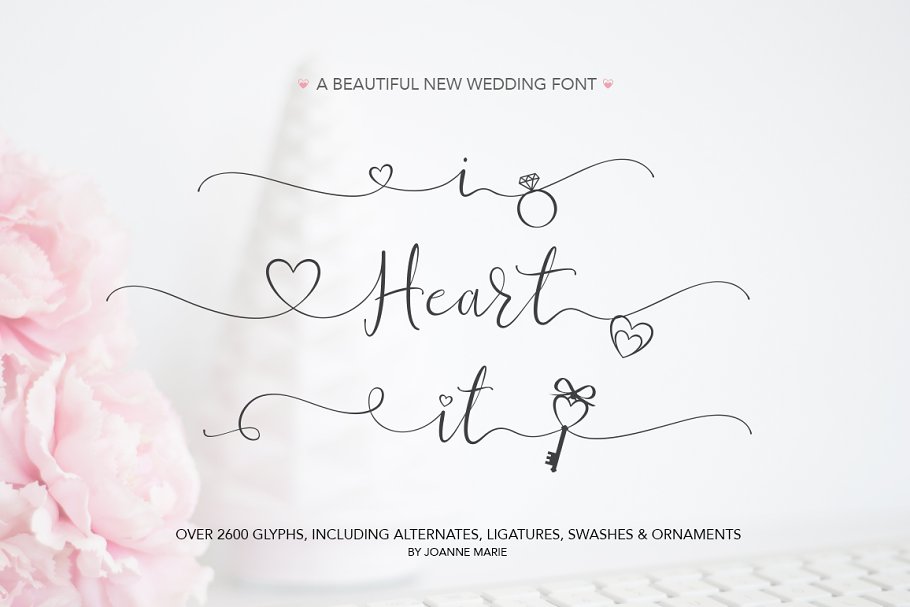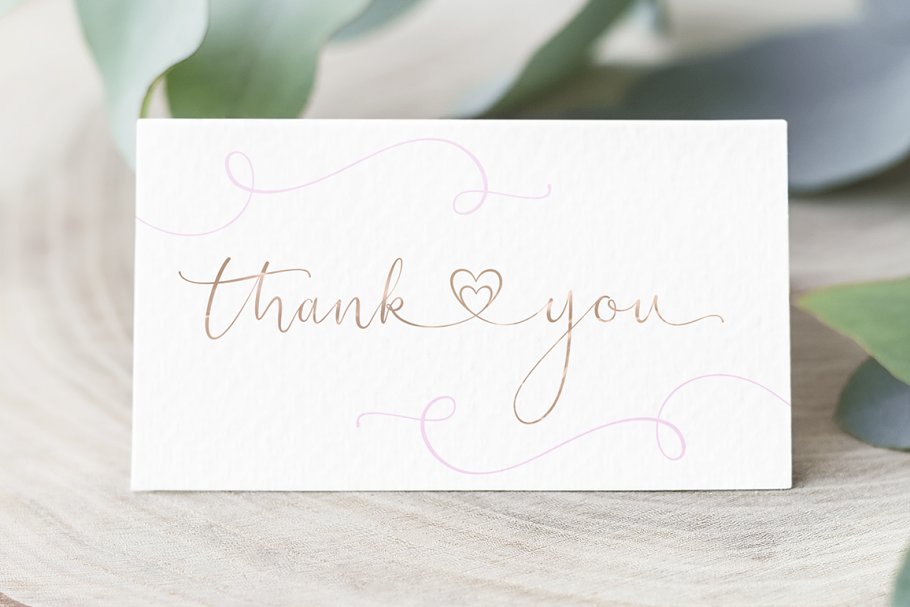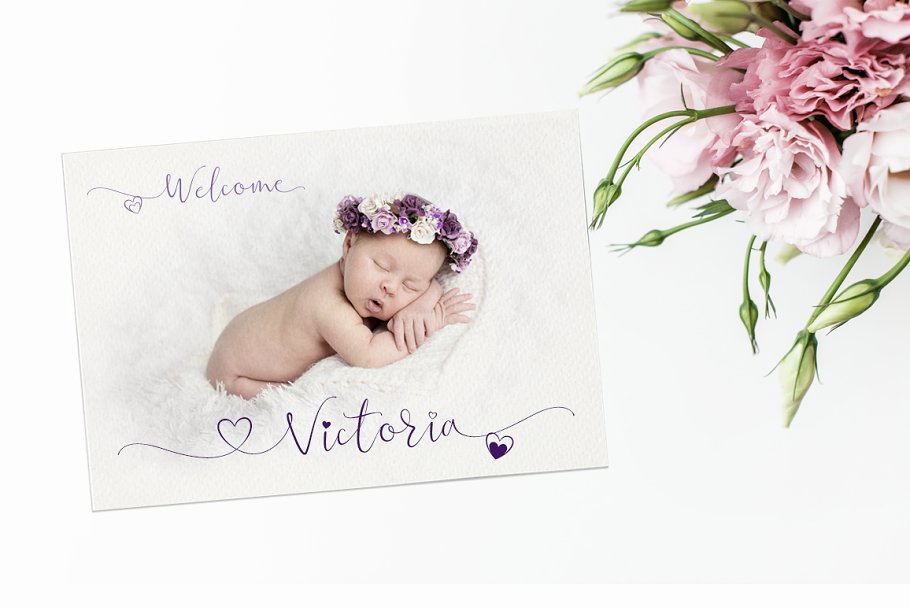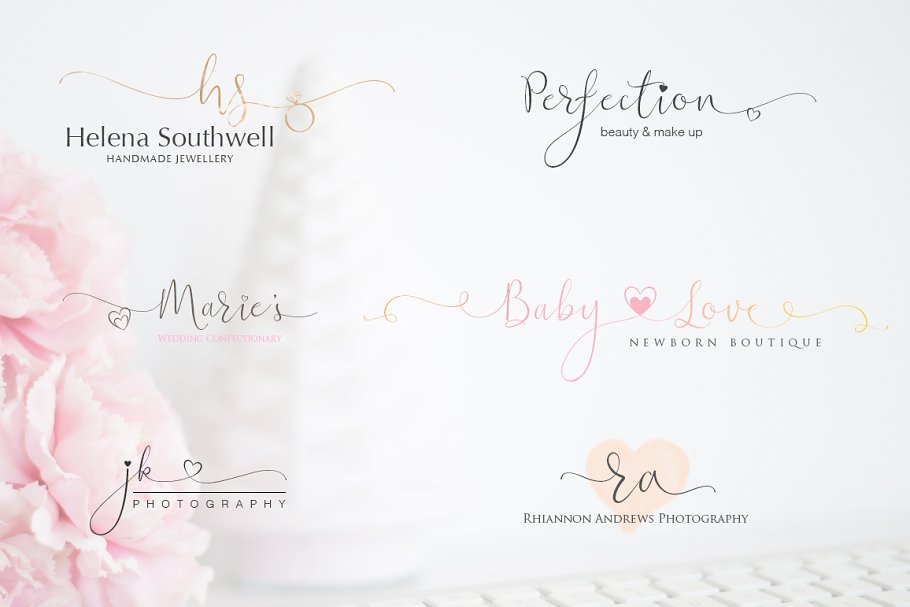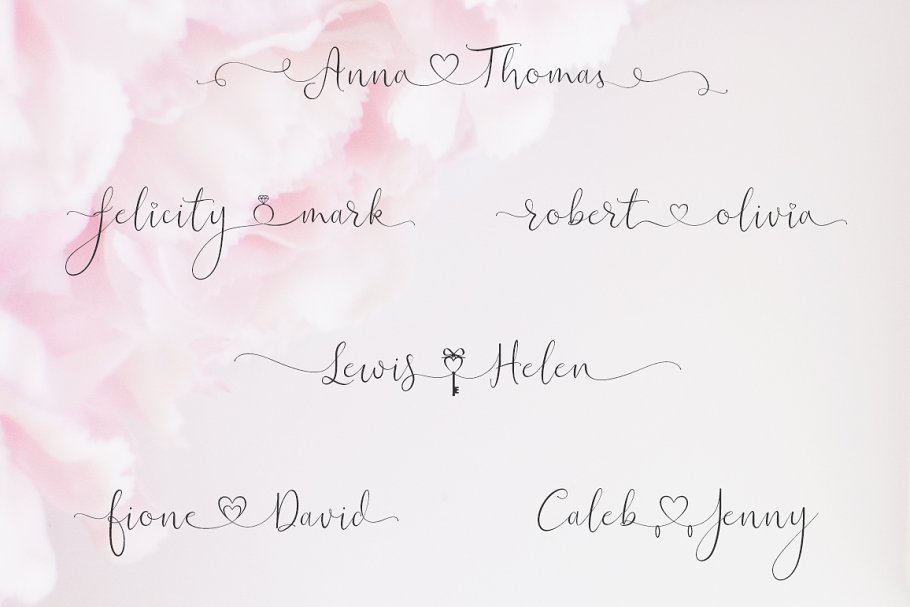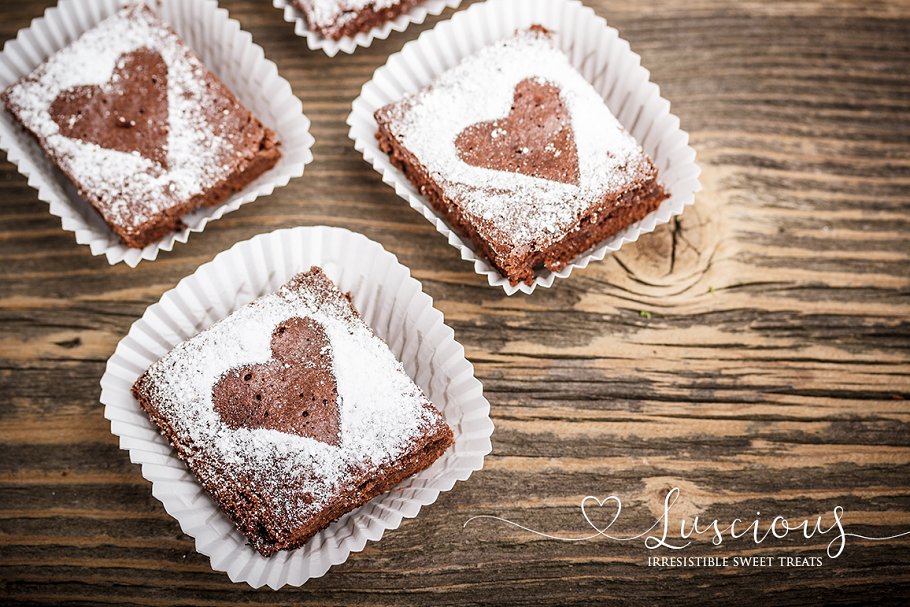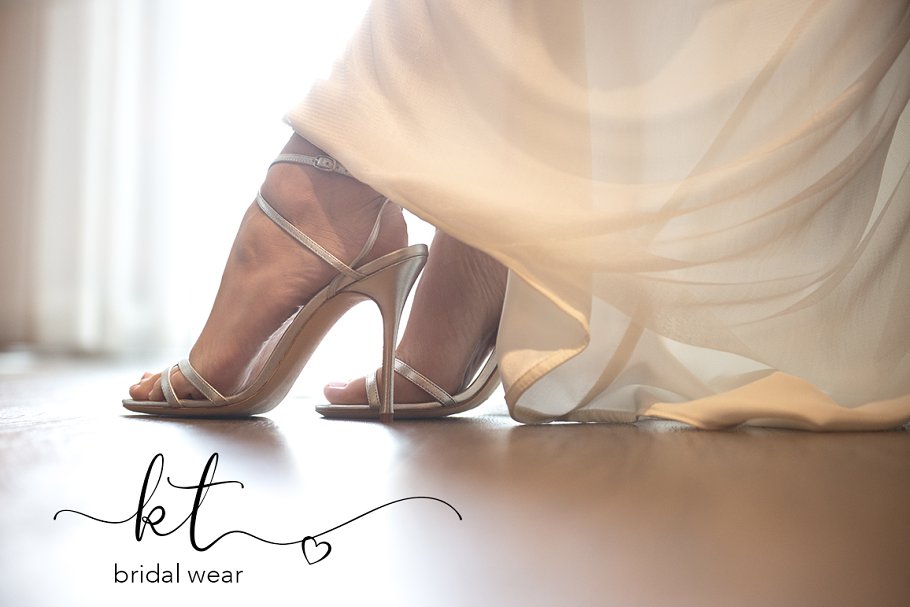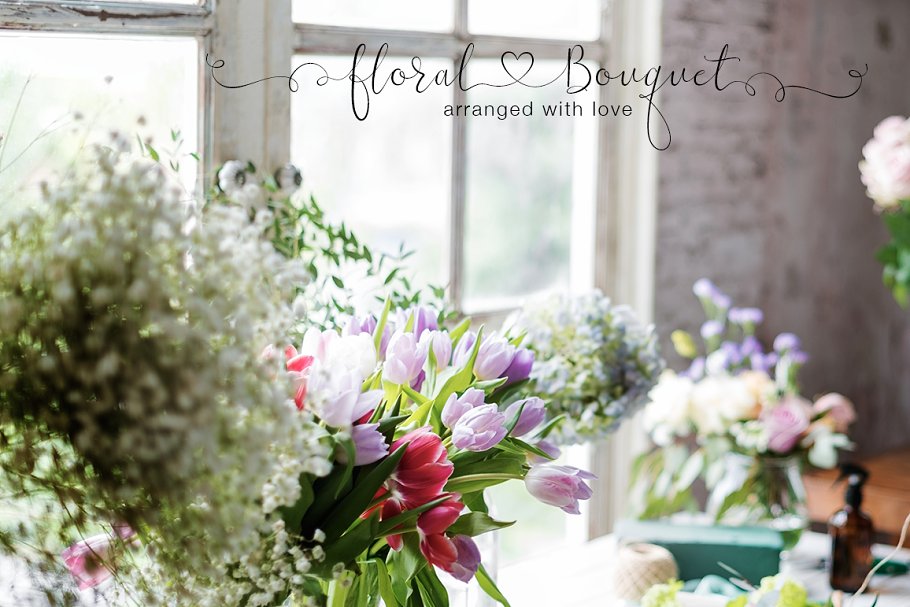
About the Wedding iHeartit Font
Made with love, iHeart it has over 2600 glyphs, is extremely smooth and is packed full of romance, There are 25 different swashes which connect to, not only, the lowercase alphabet but also on the left of the uppercase letters and the ligatures too, That’s not all! I’ve added 26 ornaments which will come in very handy for that additional touch of elegance and creativity in your designs
It’s all about the love, making this beautiful script font perfect for wedding stationery, engagements, and baby, family and friends orientated themes, Not only that – it can be used for logos, tattoos, delicious food and drink, mugs, clothing, the list is endless!They say that love conquers all and iHeart it will go a long way in expressing that through it’s illustrative design versatility, making it the perfect addition to your font collection